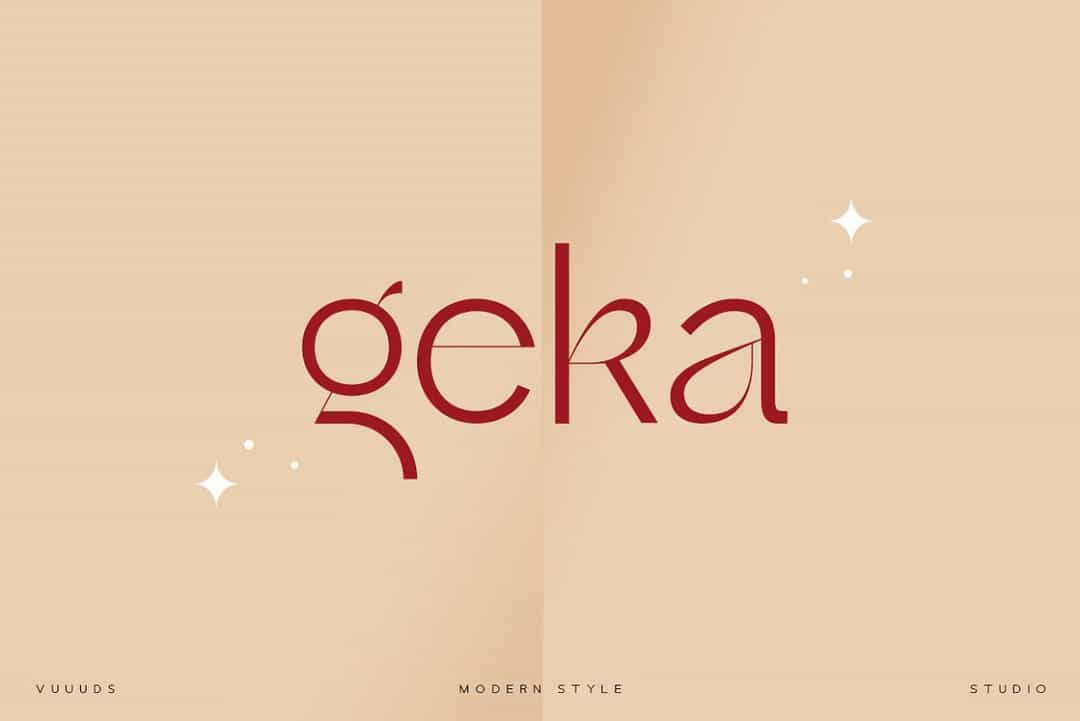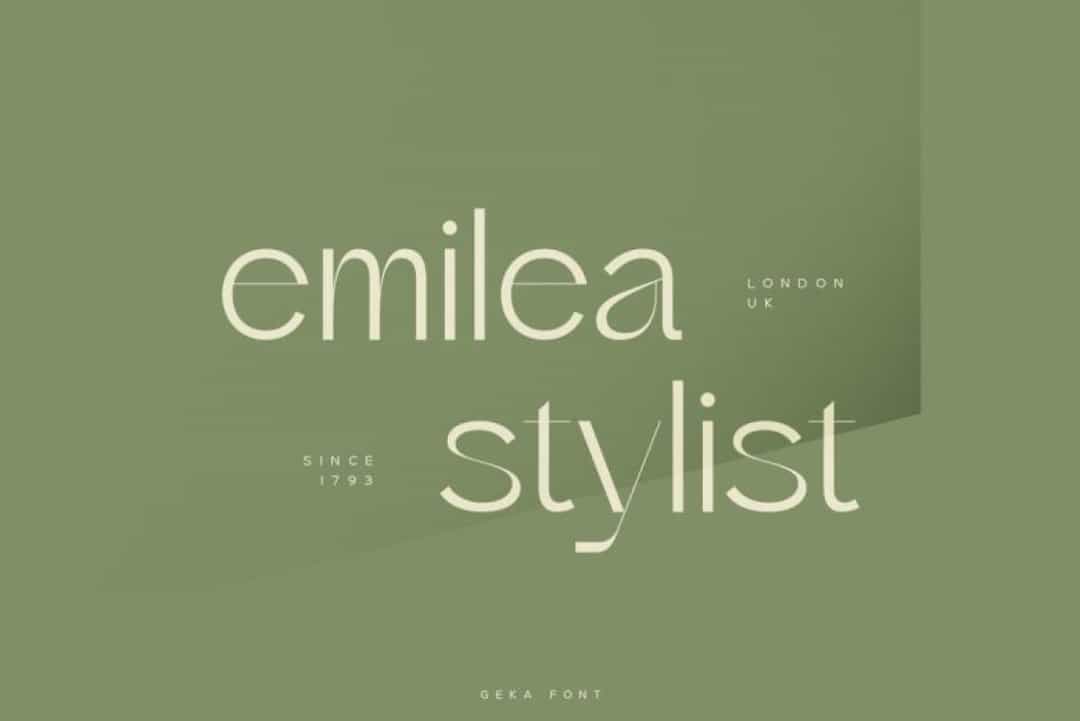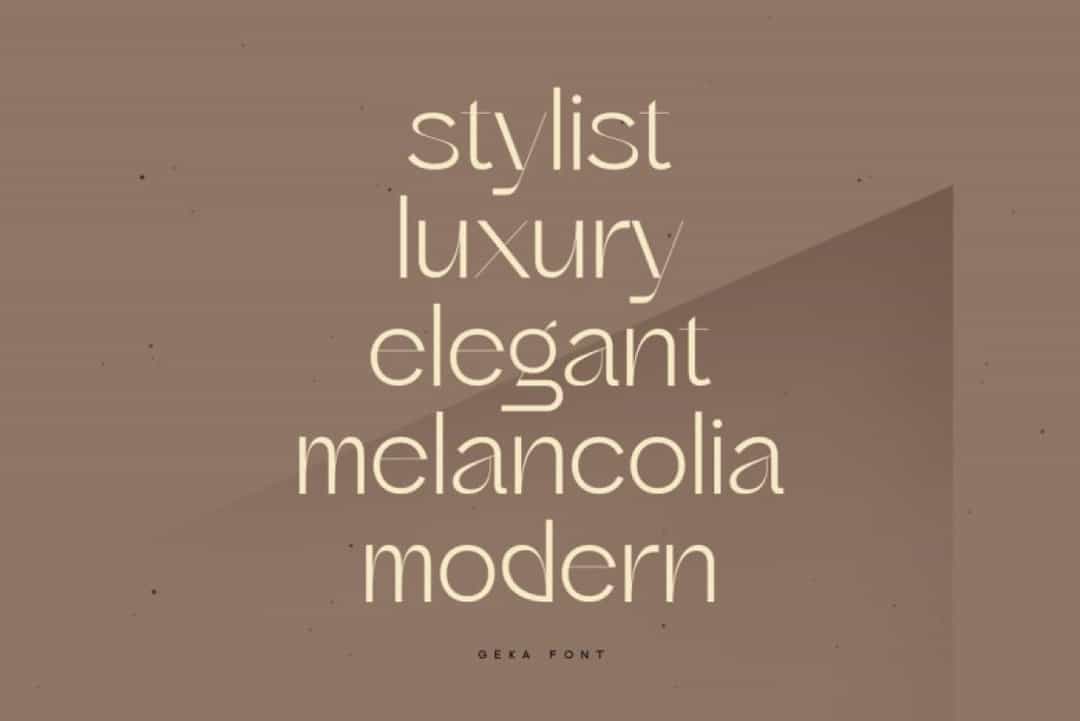
Discover Geka Font, part of the Sans Serif collection—a versatile and unique font perfect for adding a personal touch to your projects. Download it for free and enjoy crafting designs with style, from invitations to social media posts. This font is available exclusively for personal use, giving you the freedom to create without limits. Unlock your creativity with Geka Font today!
Geka can be best described as a modern style sans serif font. Every letter in Geka was meticulously created to produce text that looks unique, and features stunning alternate glyphs accessible using Font Book (Mac users) or Windows Character Map (Windows users).